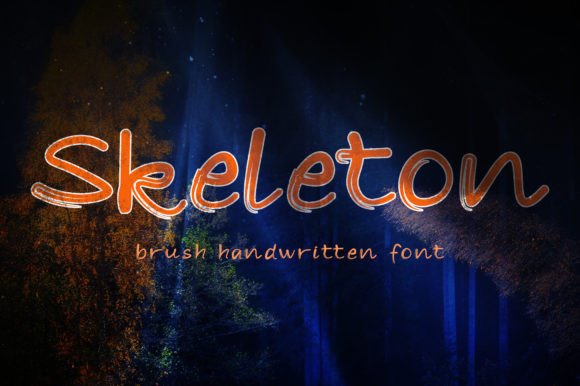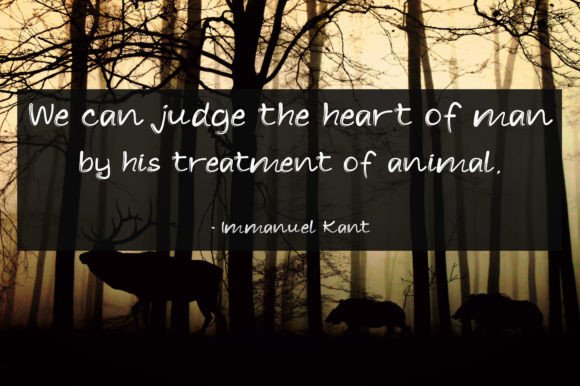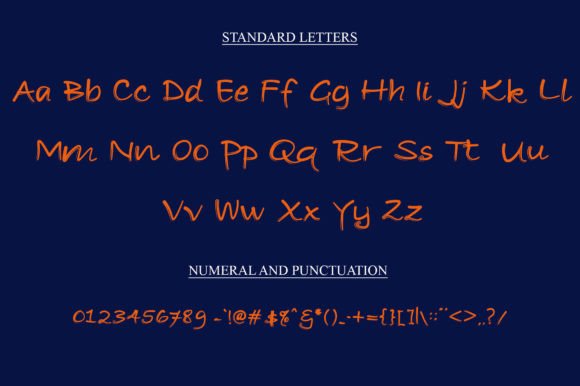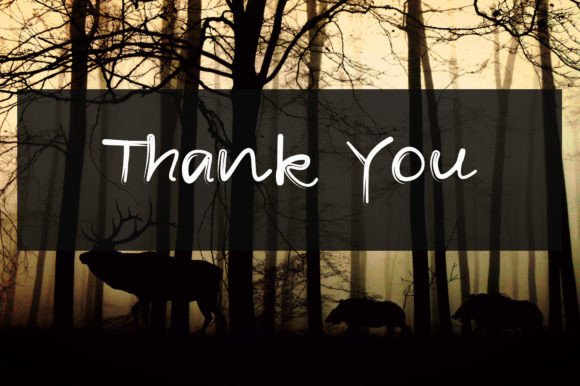
About Skeleton Font
“Skeleton” is a cool and modern handwritten brush font that brings a contemporary and stylish vibe to your projects. With its distinctive brushstroke-inspired design, this font adds a unique touch to your creative endeavors.
The appeal of “Skeleton” lies in its ability to infuse a sense of modernity and creativity into your designs. Its brush-like strokes give it an artistic flair, making it a versatile choice for various design applications.
Whether you’re working on branding, logos, posters, invitations, social media graphics, or any project that demands a fresh and trendy font, “Skeleton” is the typeface that can enhance your work and make it stand out.
This font allows you to confidently experiment with different design concepts, knowing that it will add a contemporary edge to your projects.
Embrace “Skeleton” with enthusiasm and see how it transforms your creative projects with its modern, handwritten brushstroke style, making your designs not only visually appealing but also infused with a trendy and memorable touch, regardless of the context or application.